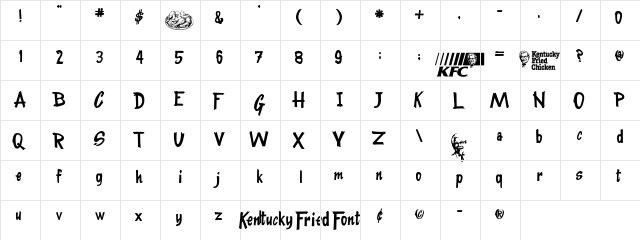
KentuckyFriedFont Regular
Design Context for KentuckyFriedFont Typeface
KentuckyFriedFont is a composed and adaptable typeface that performs quietly and consistently across a wide range of design contexts.